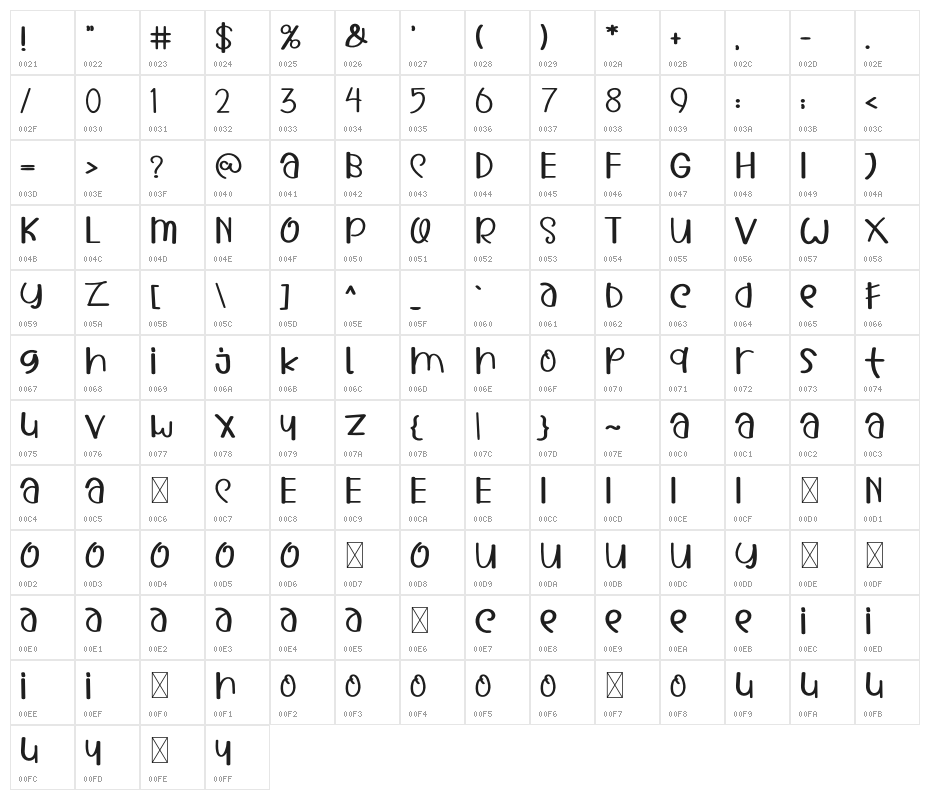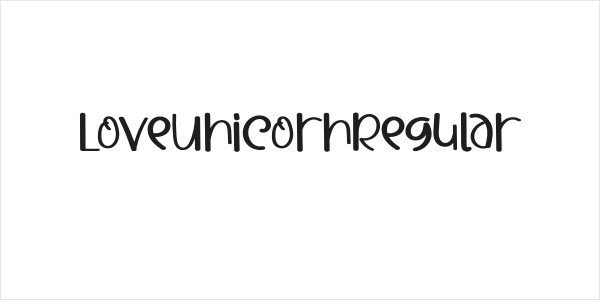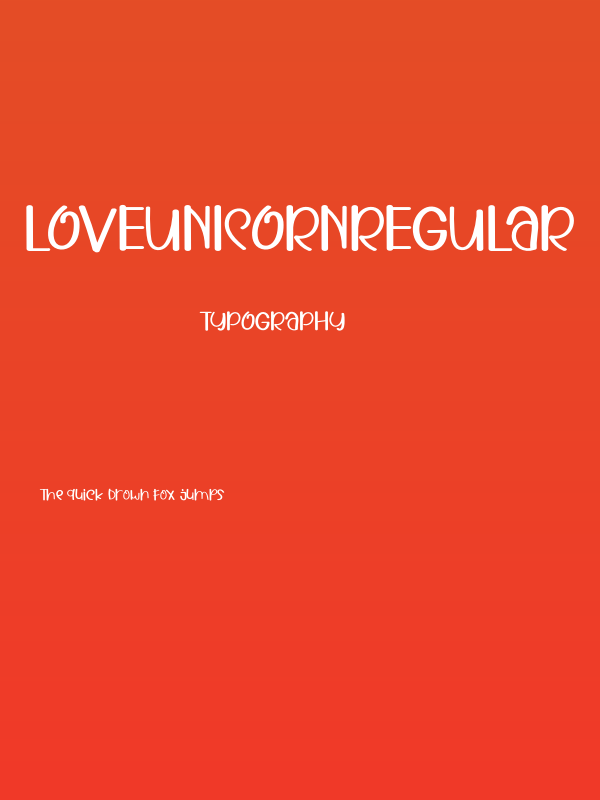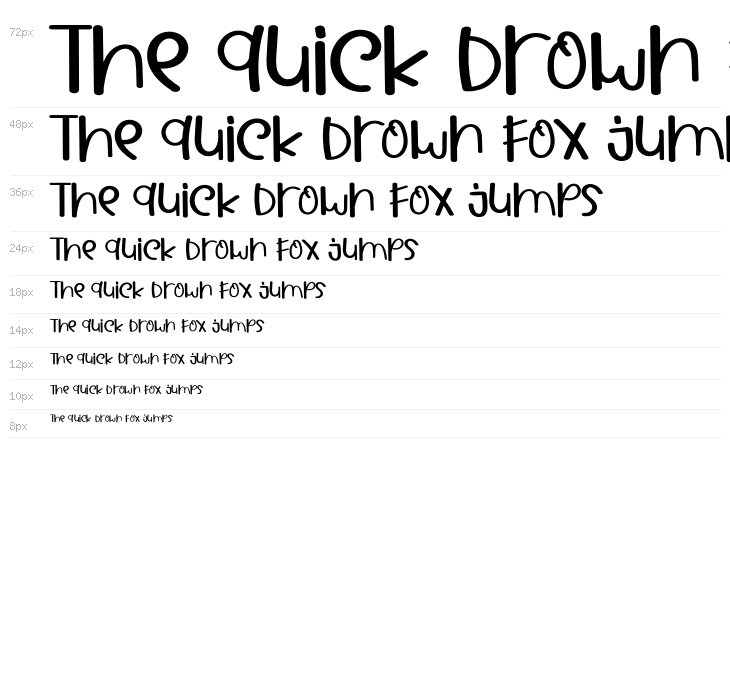
LoveUnicornRegular Font
LoveUnicornRegular Description
This playful and whimsical font features a unique blend of rounded and angular elements, creating a sense of fun and creativity. The letters are bold and slightly irregular, giving them a hand-drawn appearance that adds a personal touch. The uppercase and lowercase characters maintain a consistent style, with smooth curves and a slight tilt that enhances the dynamic feel. Numbers and special characters are designed to match the overall aesthetic, ensuring a cohesive look across all text. The font's distinctive style makes it ideal for projects that require a touch of personality and charm.
| Proposed Projects | Great for children's books, playful branding, greeting cards, and creative posters. |